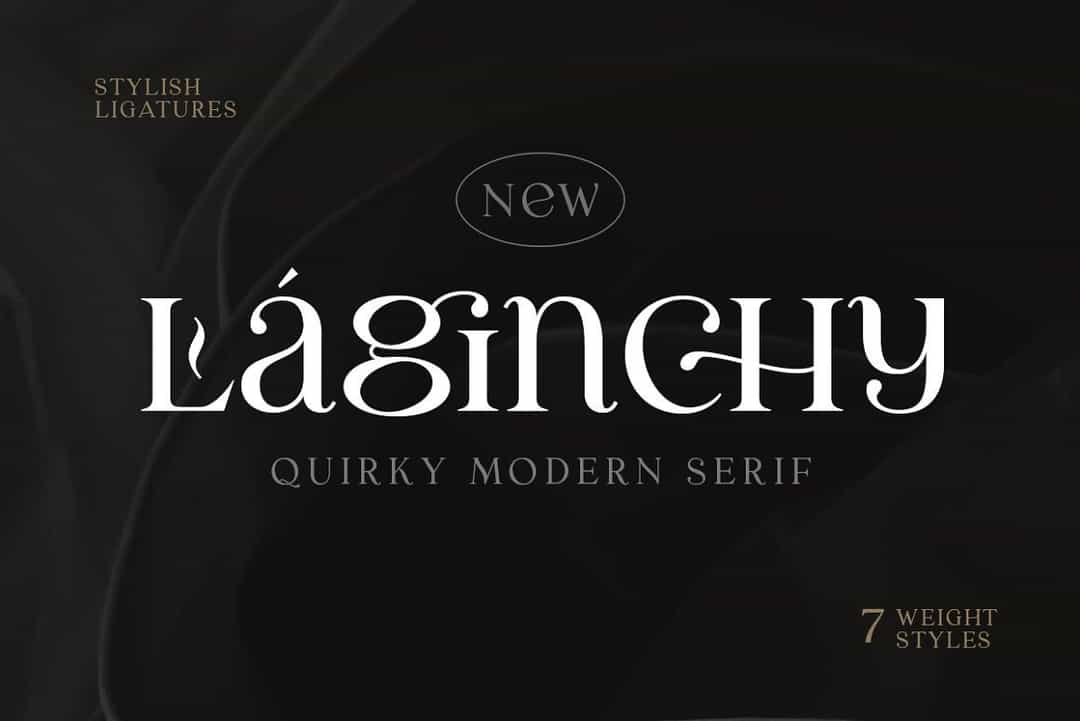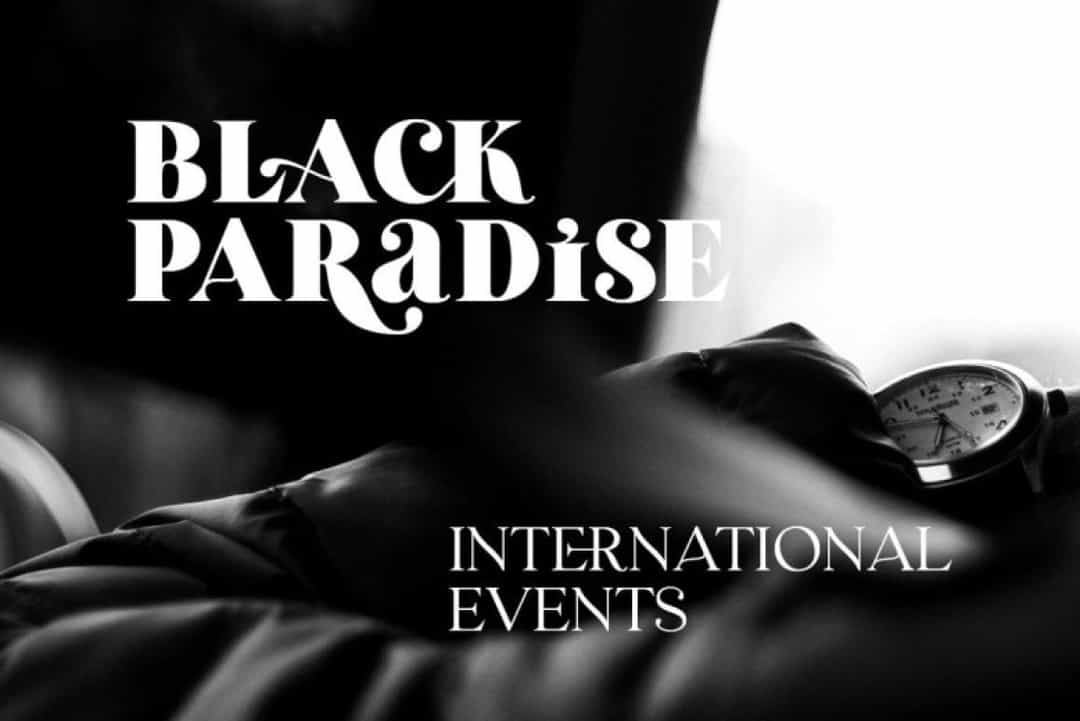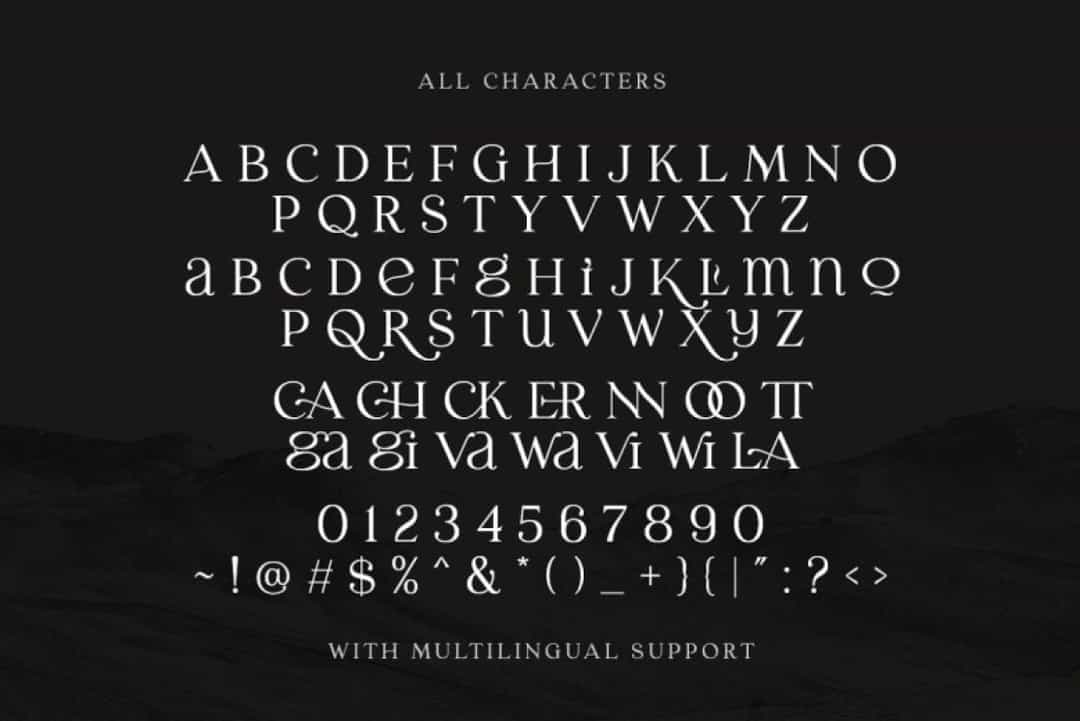
Laginchy is an eye-catching modern serif font that comes with seven weights and features unique lowercase letters. Add this charming font to any presentation poster or logo design to make them truly pop!